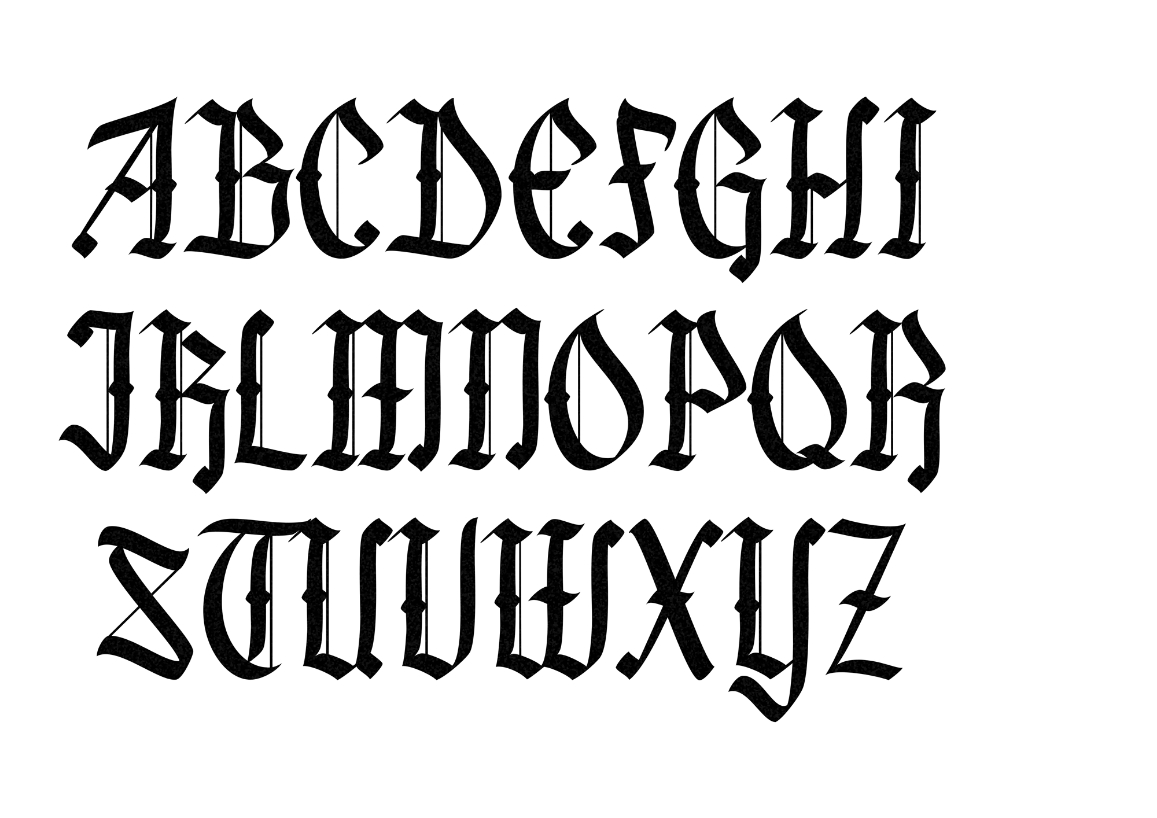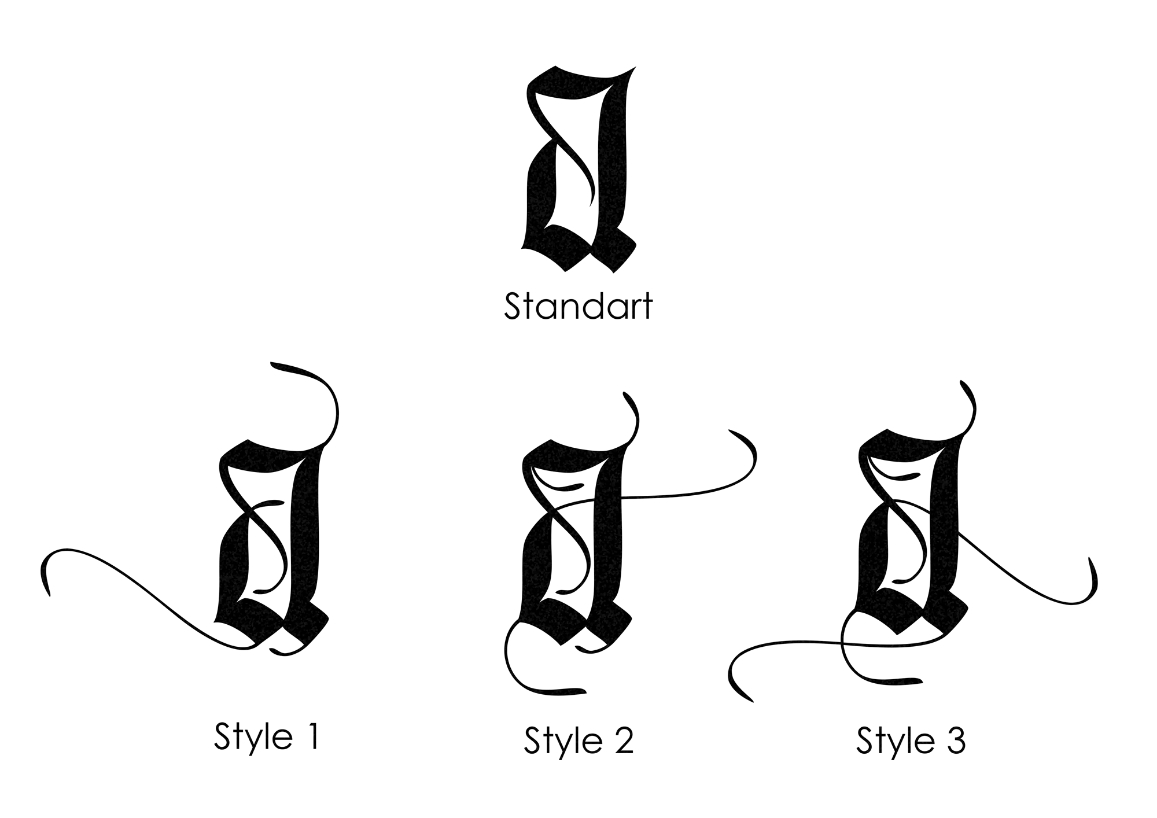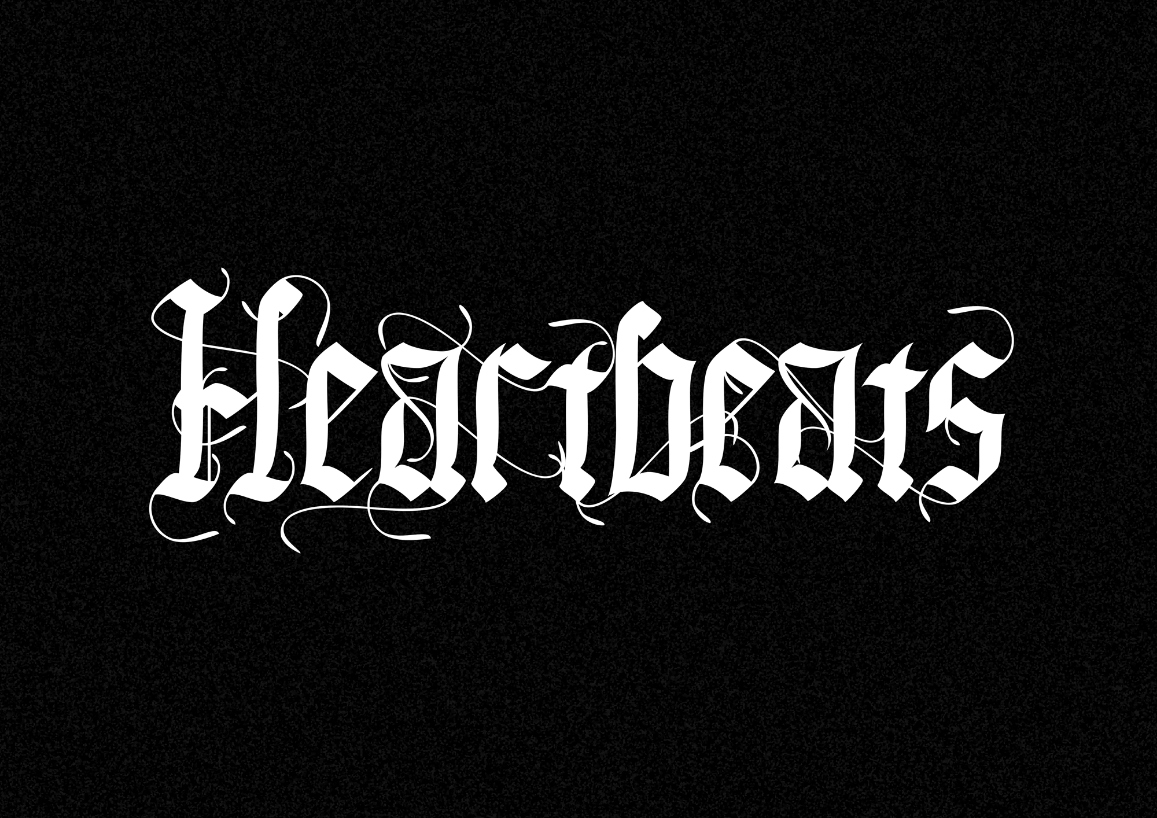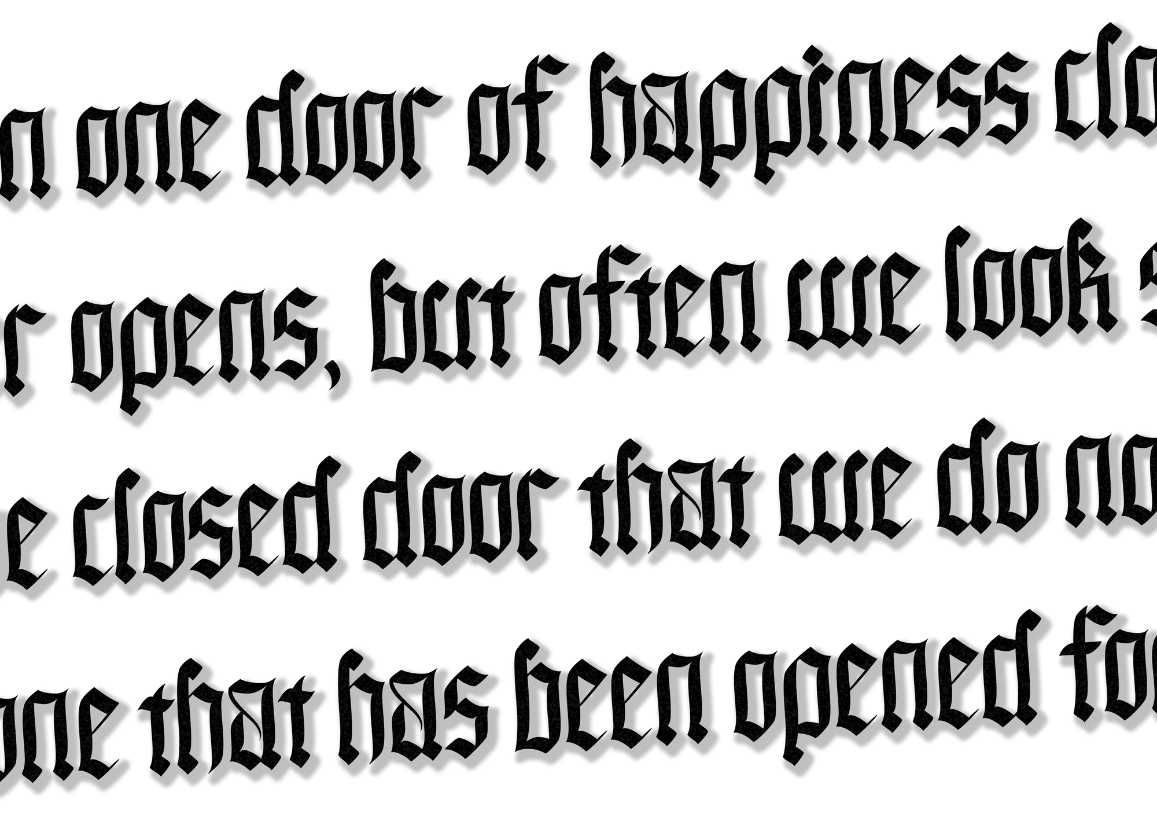
About Black Callig Font
Black Callig is a great blackletter font. It has a unique style and features amazing alternates and swashes. It will look particularly adept when used in logos, branding, packaging design, and much more. This masterfully designed typeface is a true must-have.